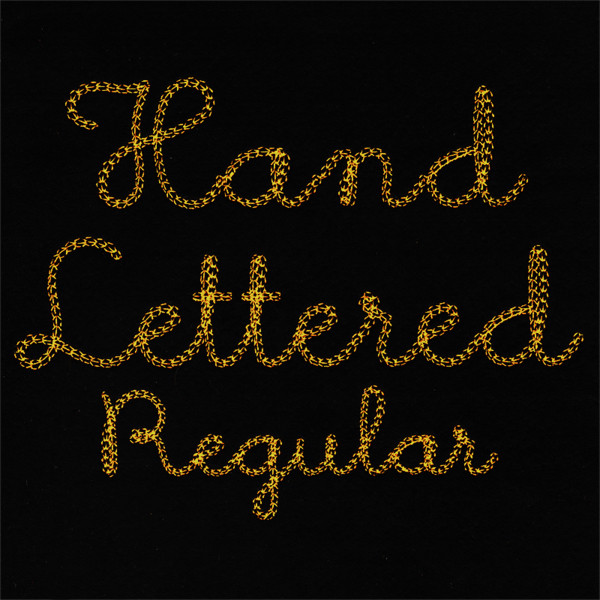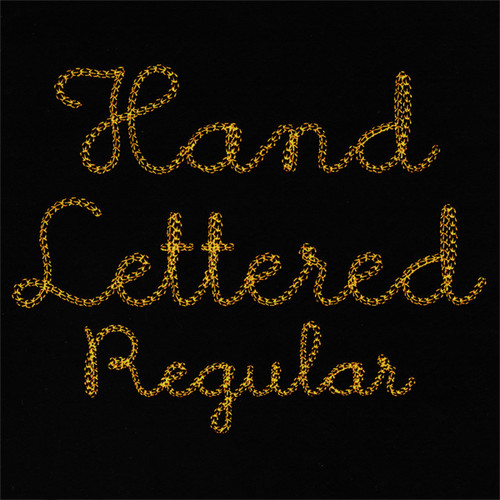
779 Hand Lettered Chain Stitch - Regular Font
779 Hand Lettered Chain Stitch - Regular Font comes in 1", 1.5" , 2", 2.5" , 3", 3.5" and 4" heights based on the capital 'A' with all other characters are proportionally sized. All sizes are included in purchase price. All characters are finished in a mock Chain Stitch. Stitching is left to right. Most lowercase letters have left/right matching points. Lower case letters c d g o q u and y start higher up but end at the left matching point creating one jump stitch; i j and t are two part and will create two jump stitches. *DO NOT RESIZE or adjust density on designs with decorative running stitches like mock Chain Stitch as this forces a stitch recalculation resulting in the loss of the original stitch pattern and stitch quality....if your embroidery management software recalculates stitches you'll need to contact the software provider to find out how to turn it off.